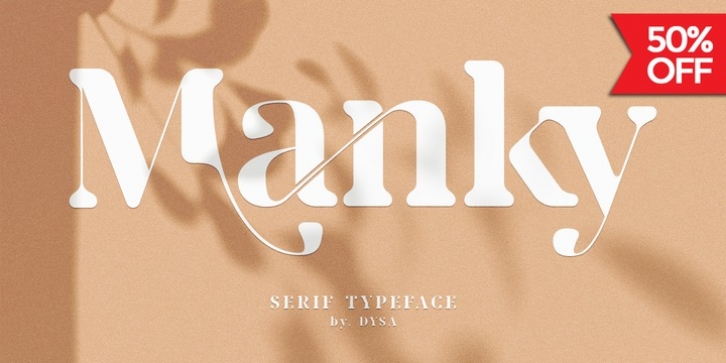
Manky is Serif Typeface Font. This another collection of Serif is perfect for your next personal branding project, excellent for your brand. Manky have a smooth edges, so this font gives an authentic handcrafted feel style.
Manky is perfect choice for people looking for clean, modern, minimalist, elegant, beauty design styles.